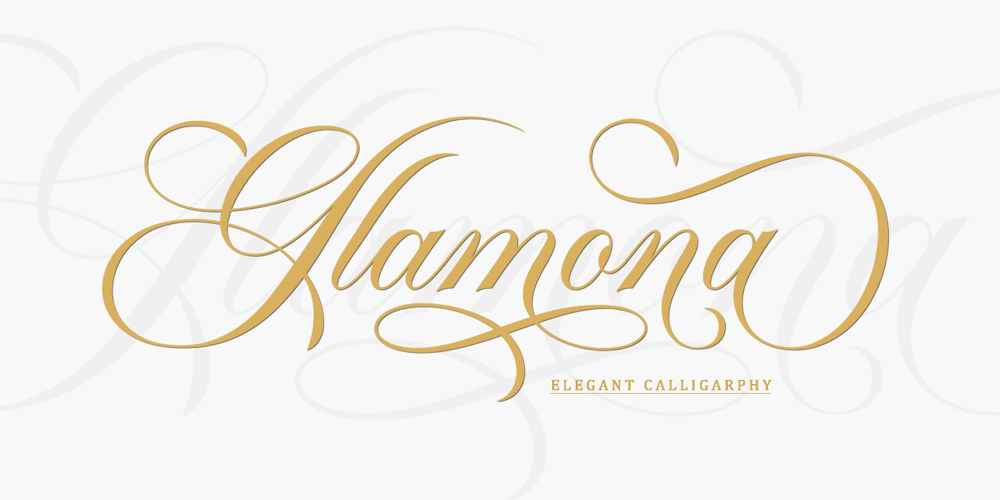
Glamona Font Family was designed by Wahi Din and published by Gold Type. Glamona contains 1 styles and family package options. Glamona Script is one of the Elegant script fonts that comes with a very beautiful character change, a kind of classic copper decorative script with a modern touch, designed with high detail to present an elegant style.You will get:Glamona Font FilesGlamona Script is interesting because the typeface is pleasing to the eye, clean, feminine, sensual, glamorous, simple and very easy to read, because of the many luxurious letter connections. I also offer a number of decent stylistic alternatives for some of the letters. Classic style is very suitable to be applied in various formal forms such as invitations, labels, restaurant menus, logos, fashion, make up, stationery, novels, magazines, books, greeting/wedding cards, packaging, labels or all kinds of advertisements. destination. . ..Glamona has 428+ glyphs and 401 alternate characters, including multiple language support. With OpenType features with alternative styles and elegant ligatures. The OpenType features don’t work automatically, but you can access them manually and for best results your creativity will be required in combining variations of these Glyphs. I highly recommend using a program that supports OpenType features and the Glyphs panel such as Adobe Illustrator, Adobe Photoshop CC, Adobe InDesign, or CorelDraw, so that you can view and access all variations of Glyphs.How to access all alternative characters using Adobe Illustrator:https://www.youtube.com/watch?v=XzwjMkbB-wQHow to access all alternative characters, using the Windows Character Map with Photoshop:https://www.youtube.com/watch?v=Go9vacoYmBwIf you need help or have any questions, let me know. I’m happy to help.Thanks & Happy Designing